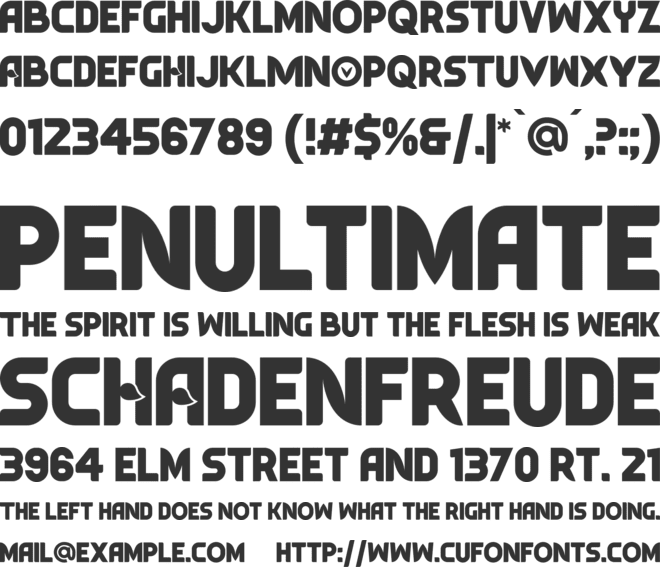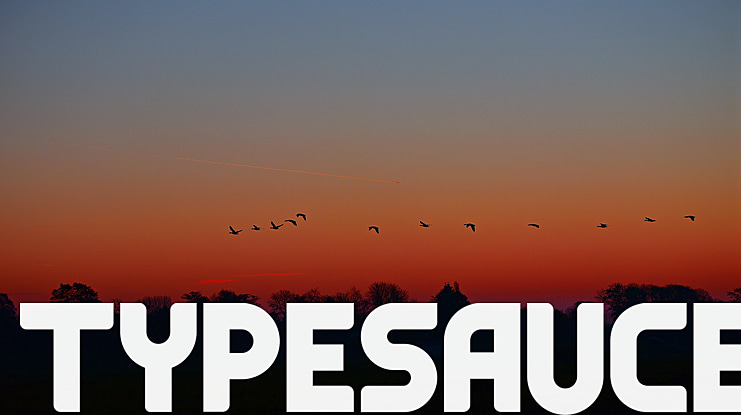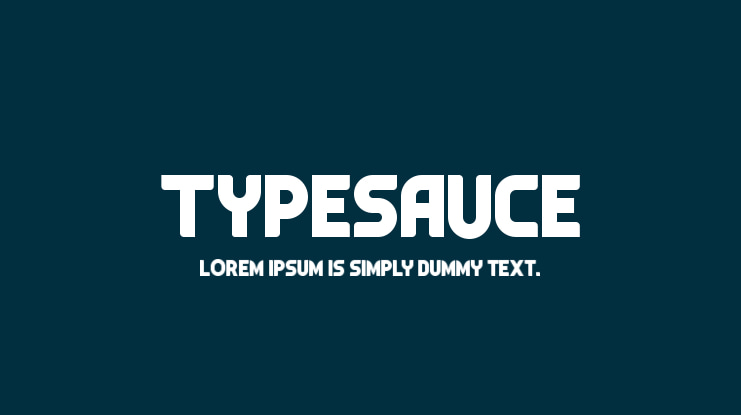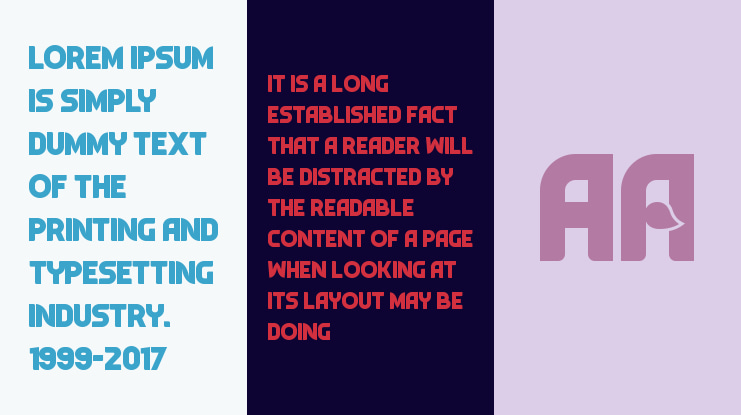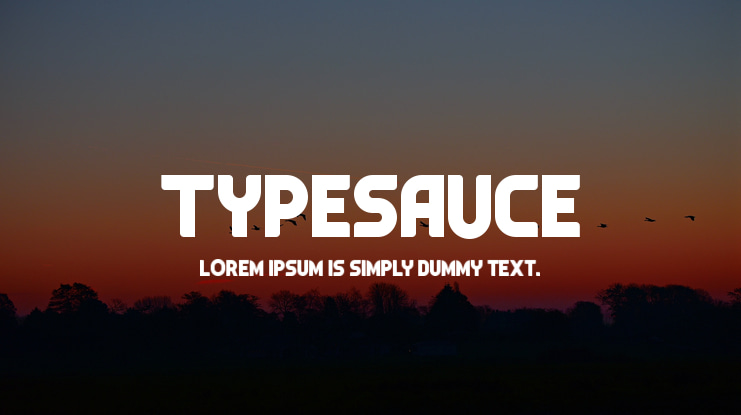
Typesauce Font
"Typesauce" is a typeface based on an original logo design by Evan Hogan|@CWCVille97, made for Vinesauce, a Twitch.TV streaming group.
"Typesauce" is a typeface based on an original logo design by Evan Hogan|@CWCVille97 (https://booru.vineshroom.net/post/view/32299), made for Vinesauce, a Twitch.TV streaming group.